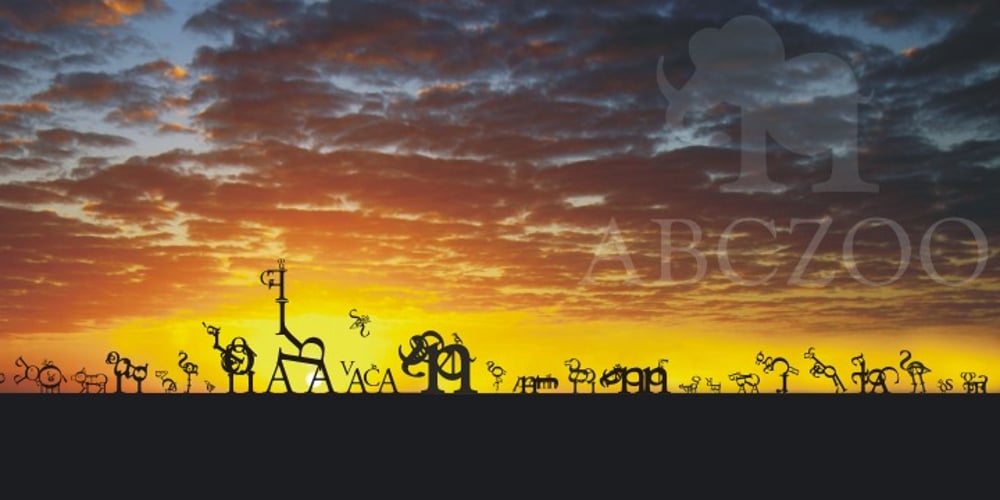
ABC Zoo English Font Family was designed by Cleber Faria and published by Intellecta Design. ABC Zoo English contains 2 styles and family package options. ABC Zoo is a collection of two typefaces where the alphabet letters are combined to create a design of animal using the letters in the name of each animal.